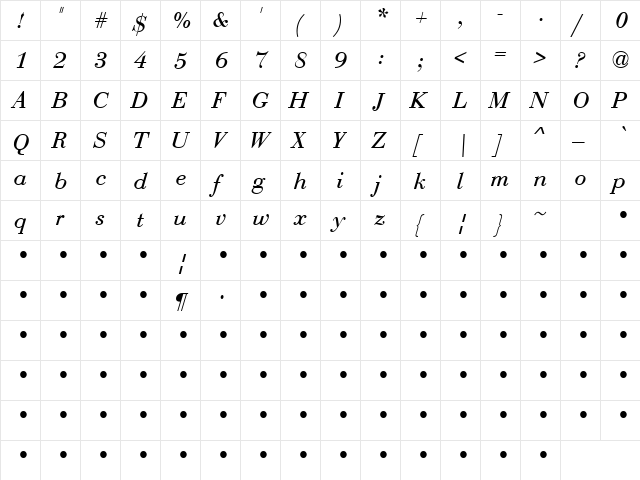
QTBodini Italic
Design Context for QTBodini Typeface
QTBodini takes a measured approach to typography — its balanced proportions and neutral character make it a reliable workhorse for both digital and print work. Its italic angle brings a sense of urgency and motion to the letterforms.